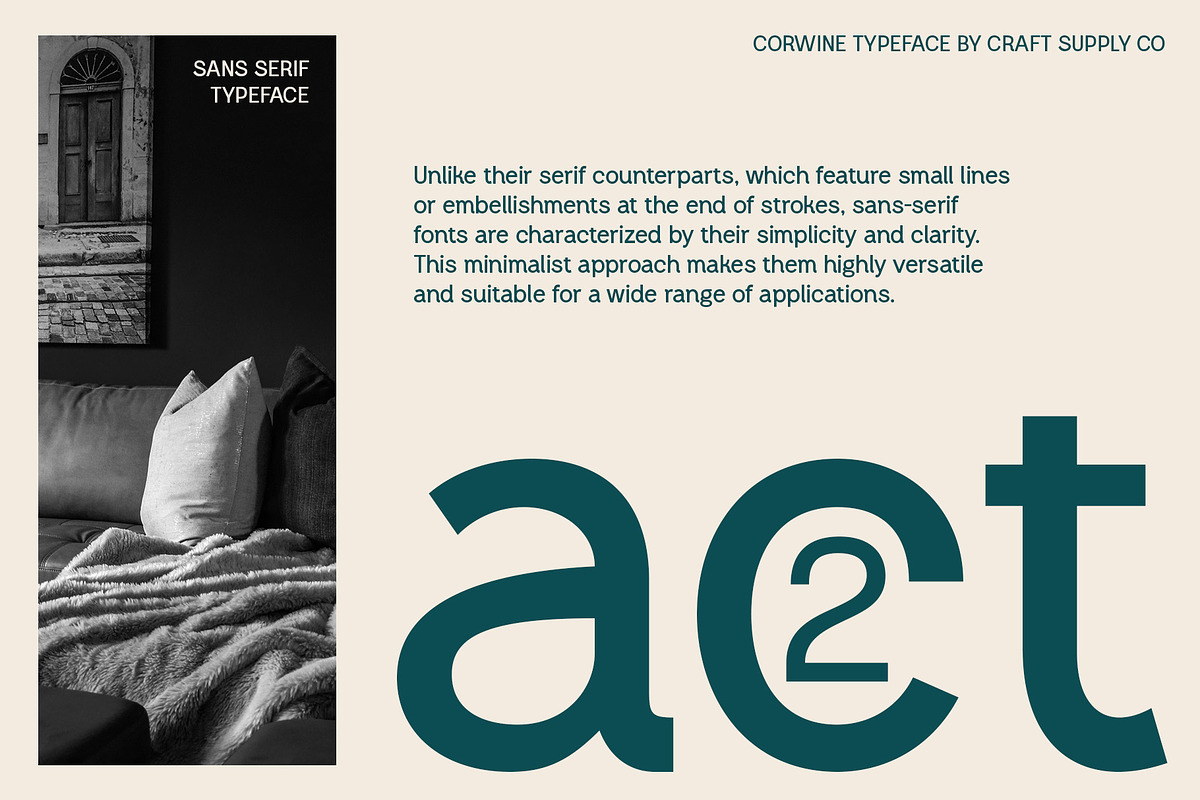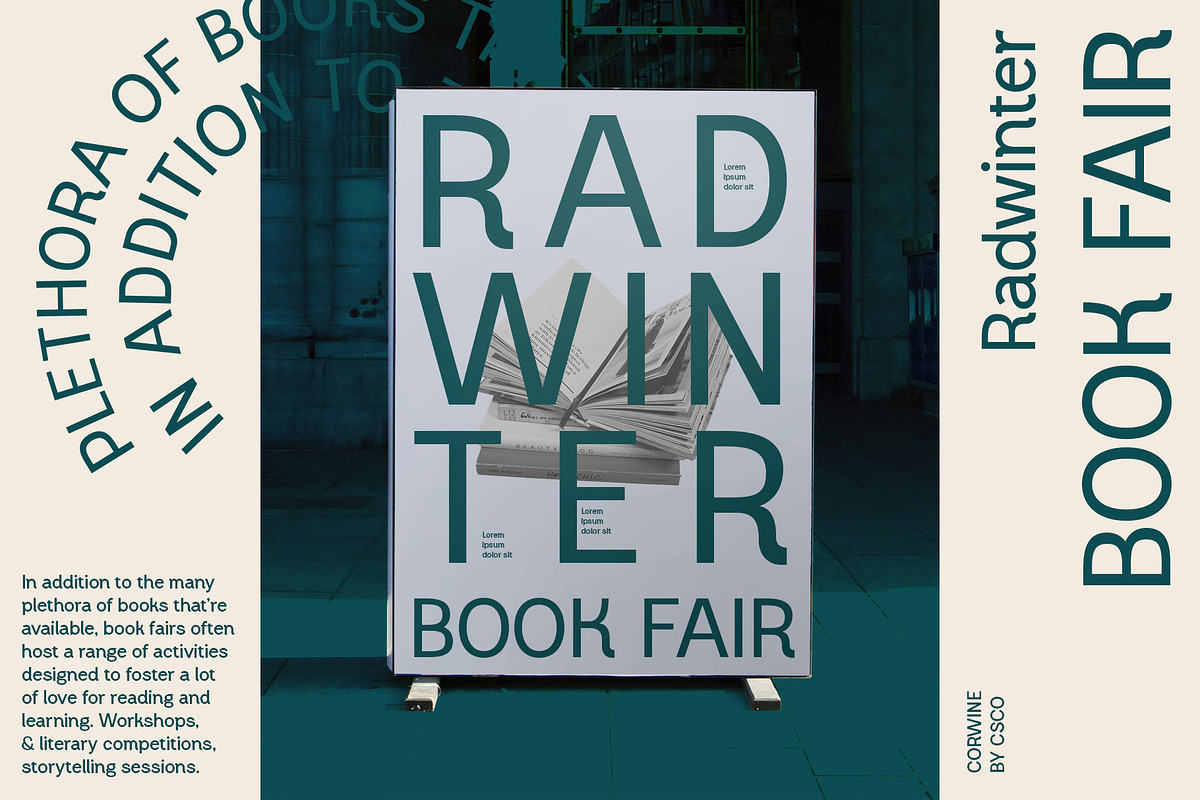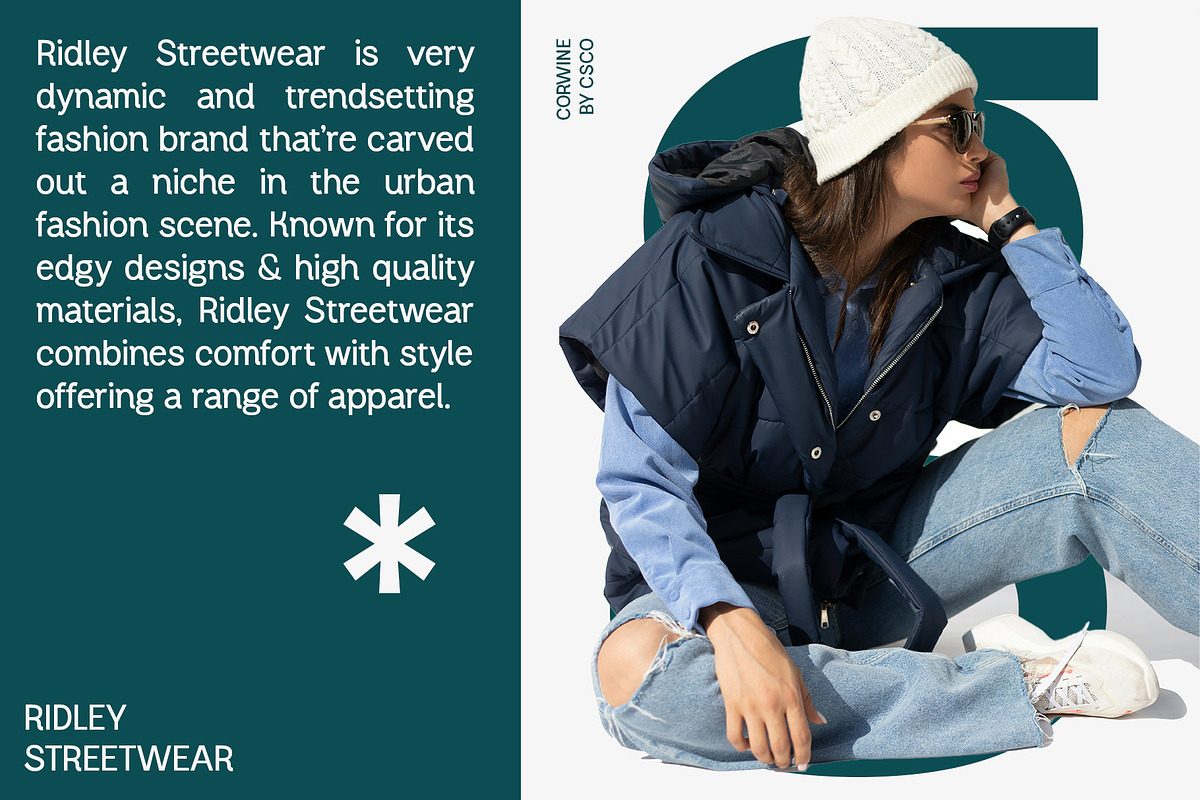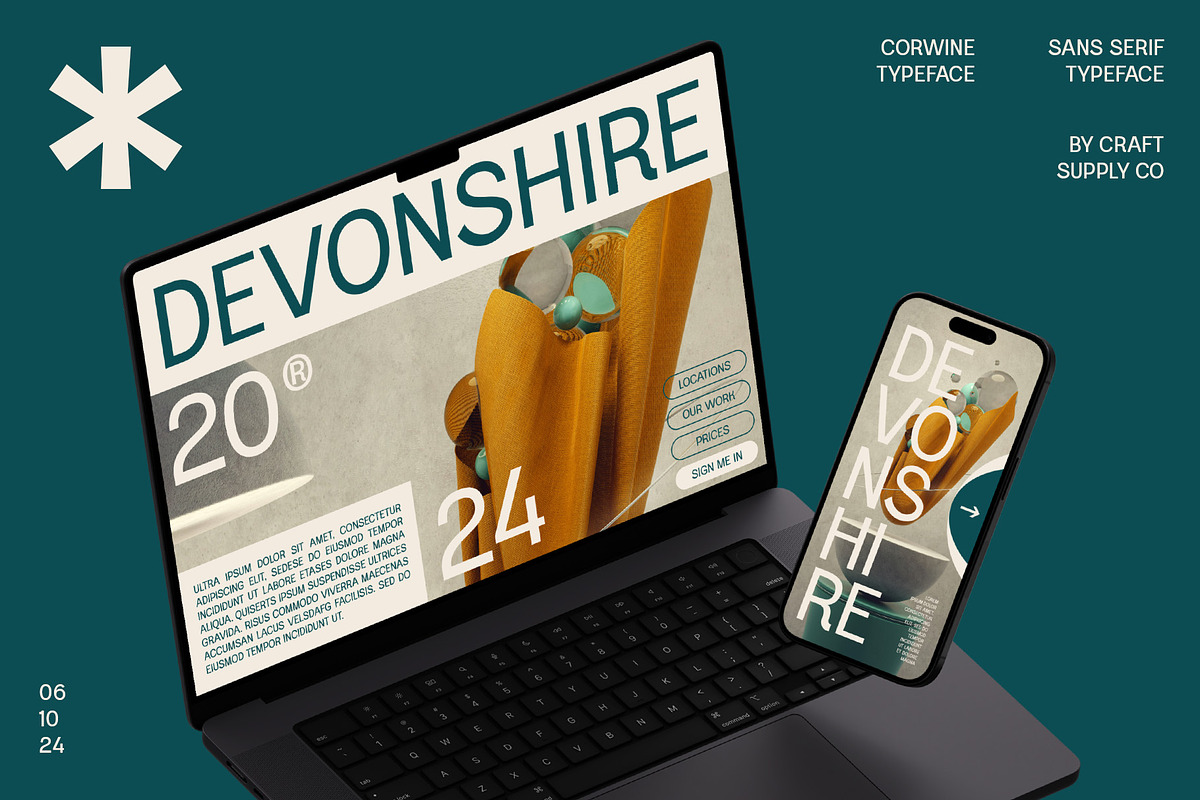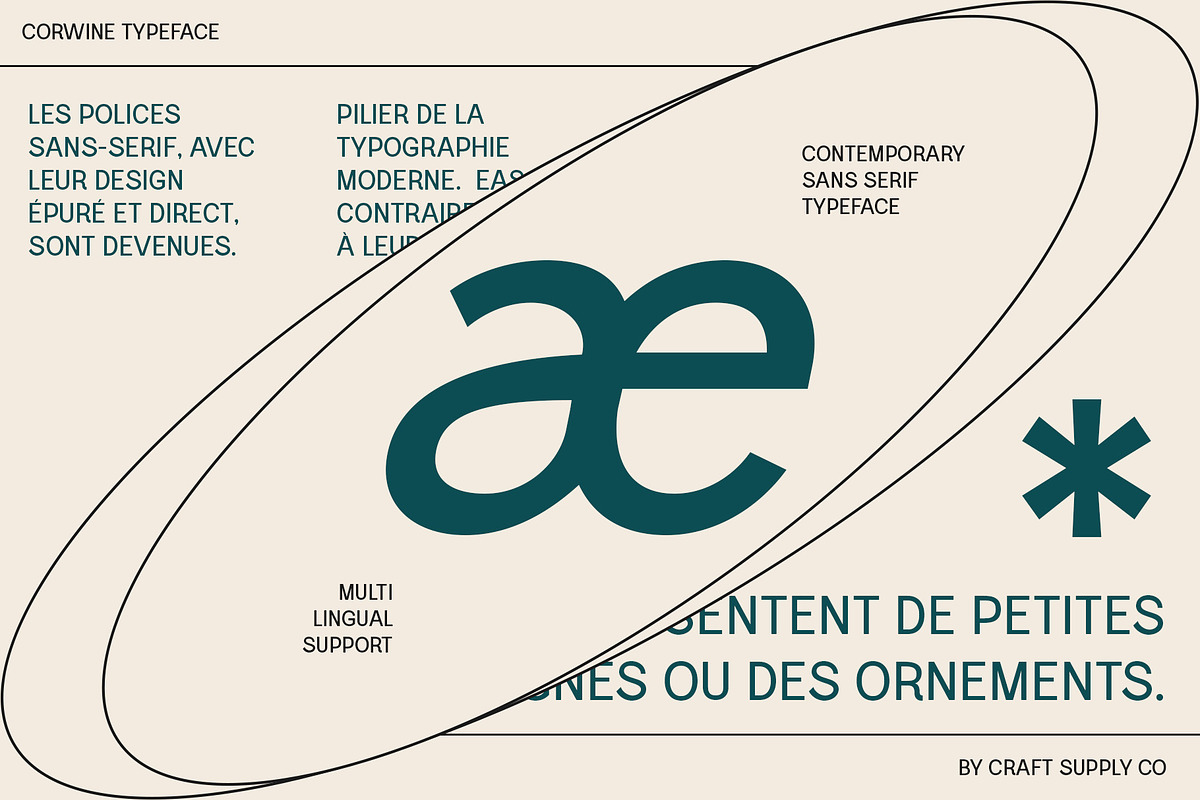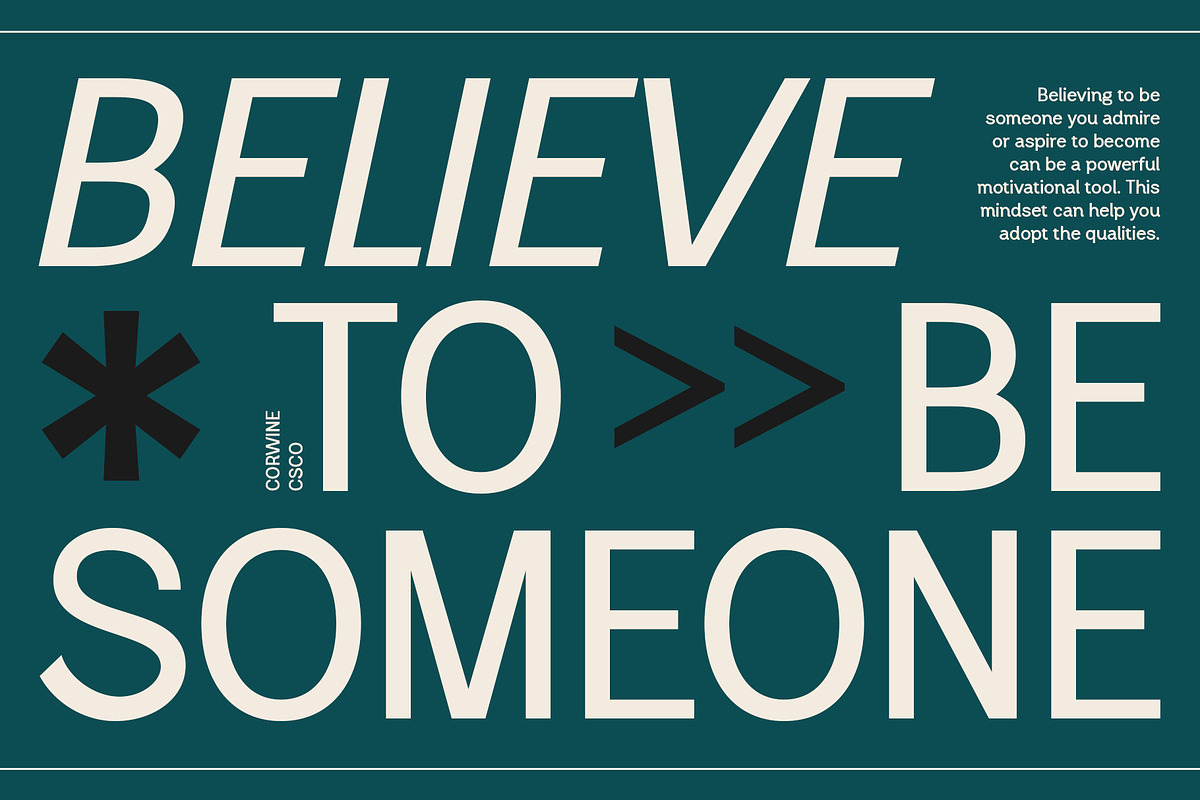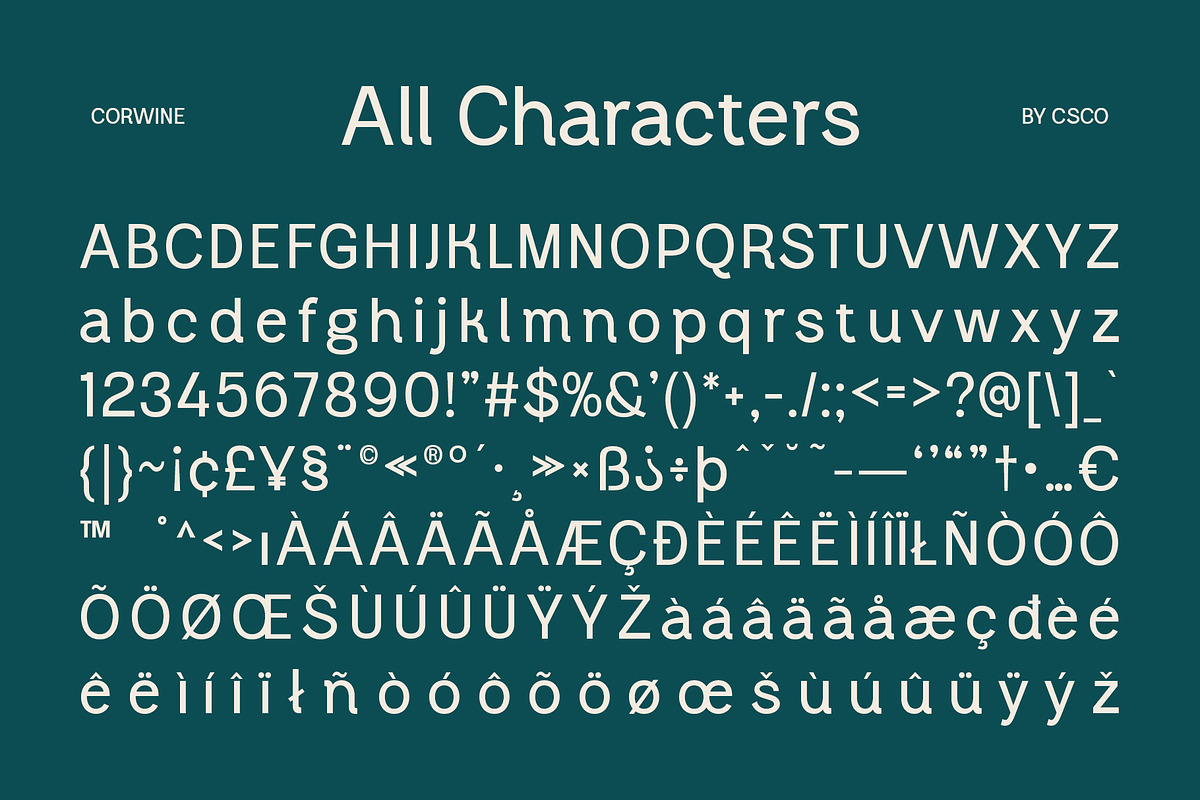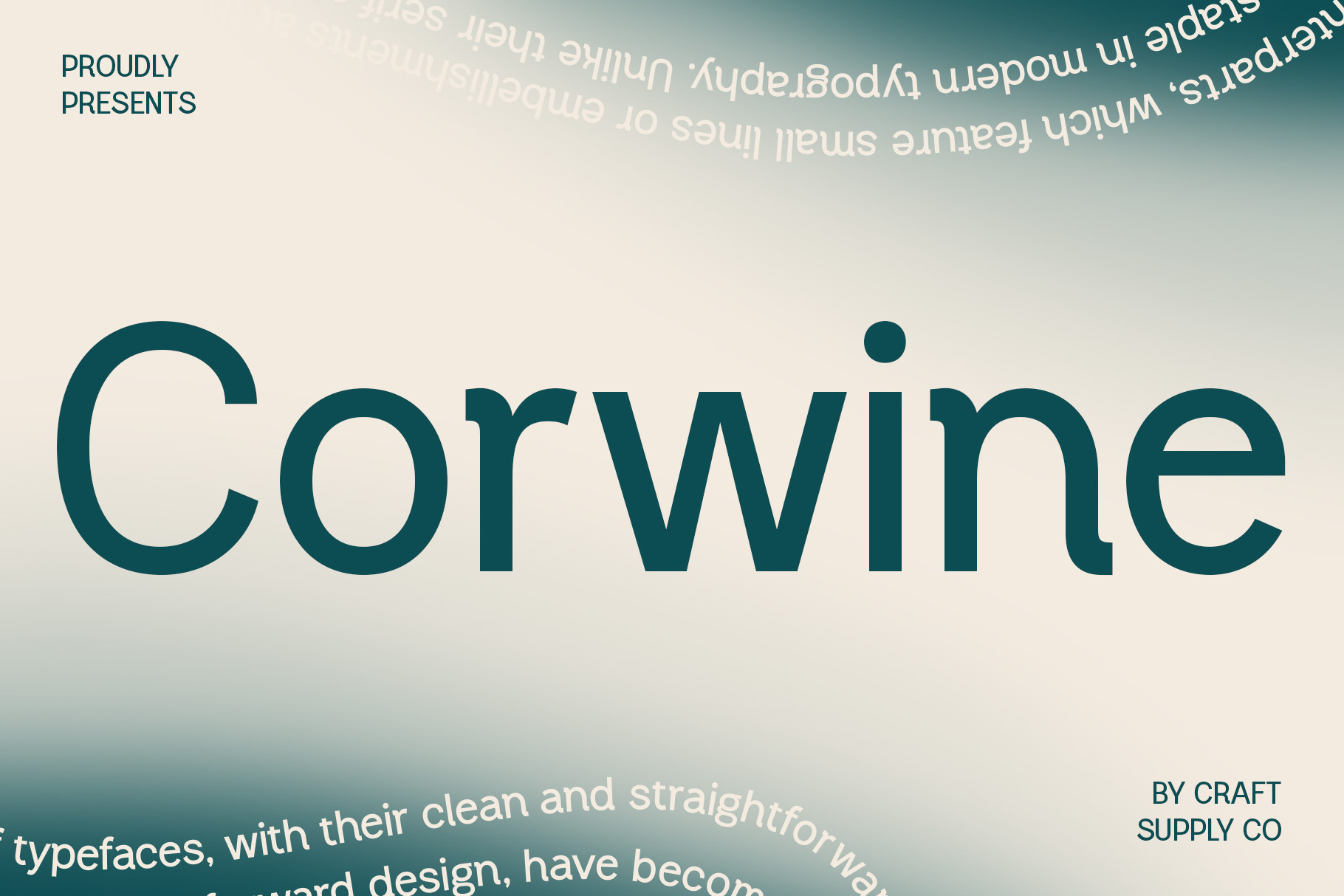
Corwine – Modern Font
Corwine – Modern Font: Where Versatility Meets Professionalism
Modern Sans-Serif Font
Corwine is a modern sans-serif font suitable for various professional and creative design projects. Its clean and minimalistic design makes it a versatile choice for posters, websites, billboards, and more.
Perfect for Various Design Contexts
With its versatile design, Corwine Font can be used in a variety of design contexts to provide a professional, clean, and modern look. Whether you’re designing a corporate website or creating a promotional poster, Corwine offers a sleek and contemporary aesthetic.
Enhanced Readability
Corwine Font prioritizes readability, making it ideal for projects that require clear and legible typography. Its modern sans-serif style ensures that your message is communicated effectively, whether in print or digital media.
Suitable for Professional and Creative Projects
Corwine Font is the perfect choice for projects that require a blend of professionalism and creativity. Whether you’re designing a corporate identity or developing an advertising campaign, Corwine adds a touch of modern sophistication to your designs.
Elevate your designs with Corwine Font and enjoy the perfect balance of versatility and professionalism.
- Corwine Regular
- Corwine Italic